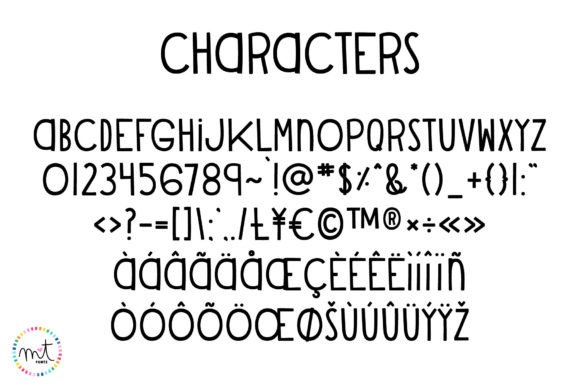
Introduction to Live Free Love Life Font Font
Fonts play a crucial role in design, and the Live Free Love Life Font font is a typeface that brings both character and versatility to any project. Whether you’re working on a branding project, a website, or a print design, the Live Free Love Life Font font offers a unique style that can elevate your work.
Live Free Love Life is a charming handwritten sans serif font that embodies a carefree and joyful spirit.
Its smooth, clean lines offer a contemporary appeal, while the hand-drawn touch adds a personal and authentic feel Perfect for adding a touch of positivity and warmth to any project, this font encourages you to embrace life with love and freedom.
Key Features of Live Free Love Life Font Font
Why Choose Live Free Love Life Font Font?
The Live Free Love Life Font font is more than just a typeface – it’s a design tool that helps you communicate your message with style and clarity. Its unique character set and versatile design make it suitable for a wide range of applications, from elegant invitations to bold headlines.
With its carefully crafted letterforms and balanced proportions, the Live Free Love Life Font font ensures readability and visual appeal across all mediums.
What makes Live Free Love Life Font font special?
The Live Free Love Life Font font stands out with its unique design, exceptional readability, and versatility across various design applications.